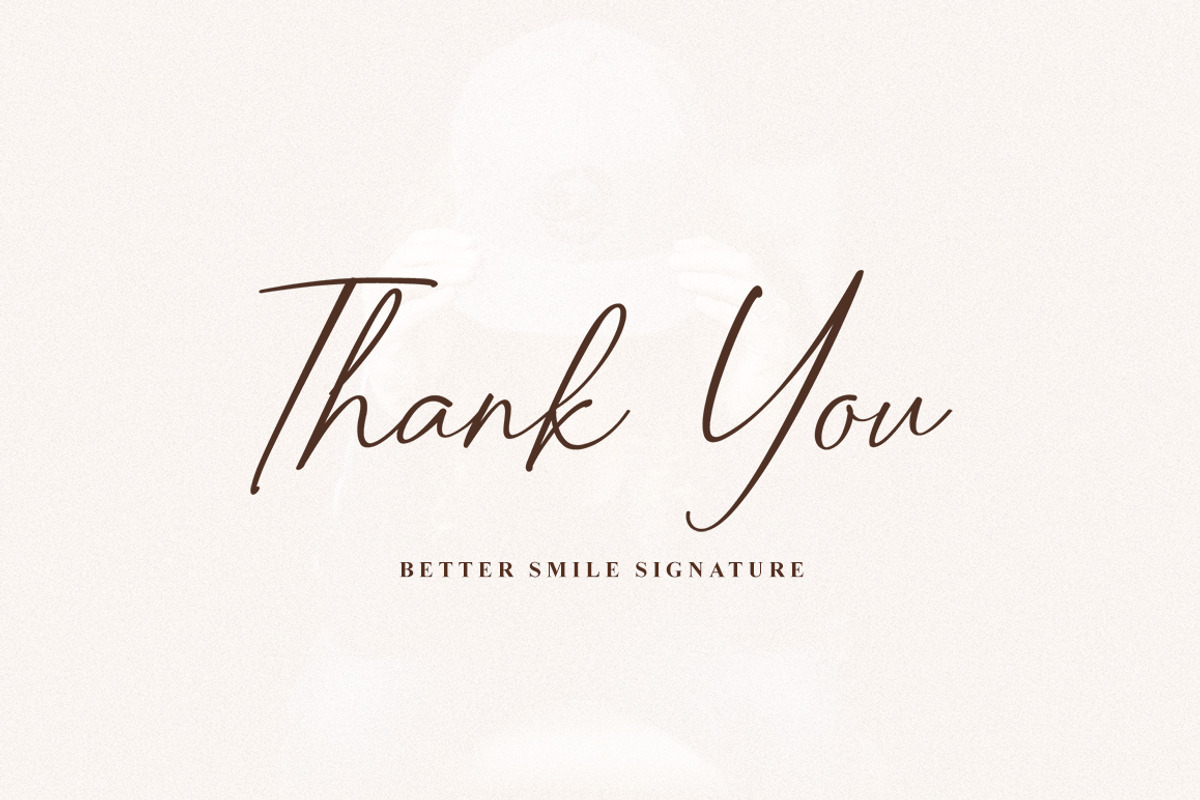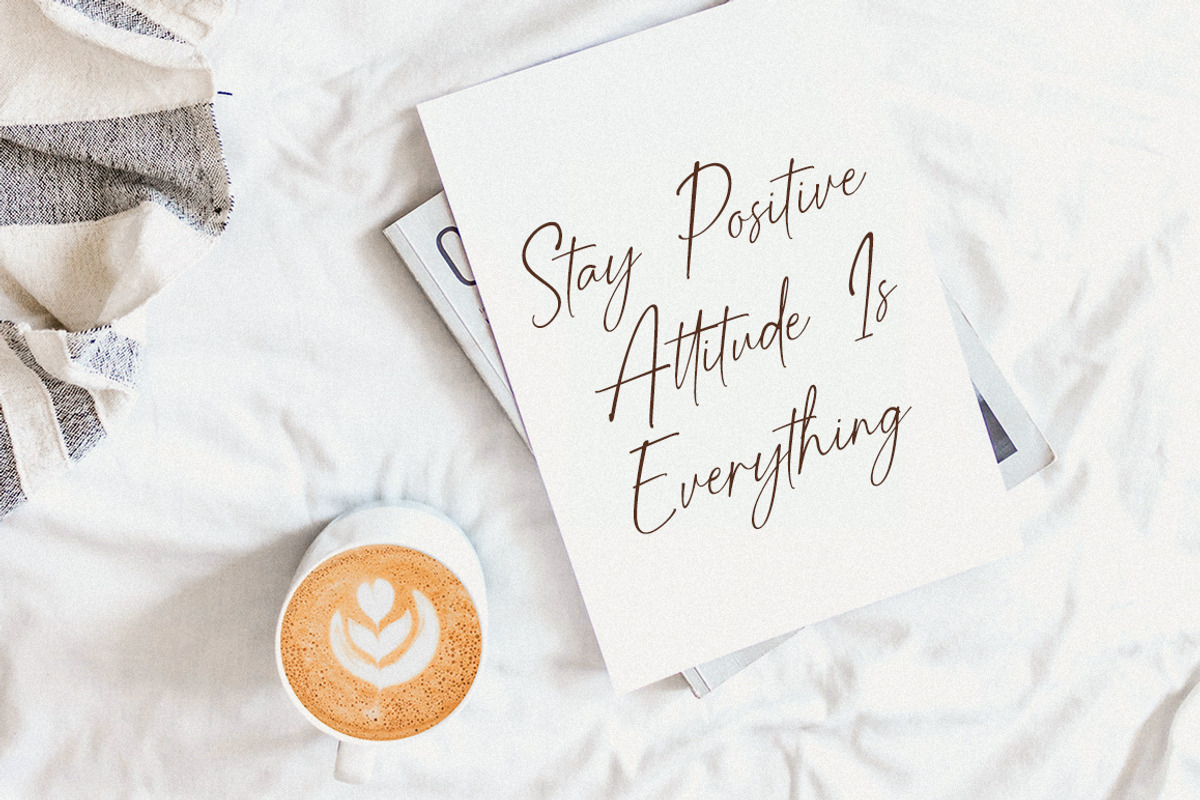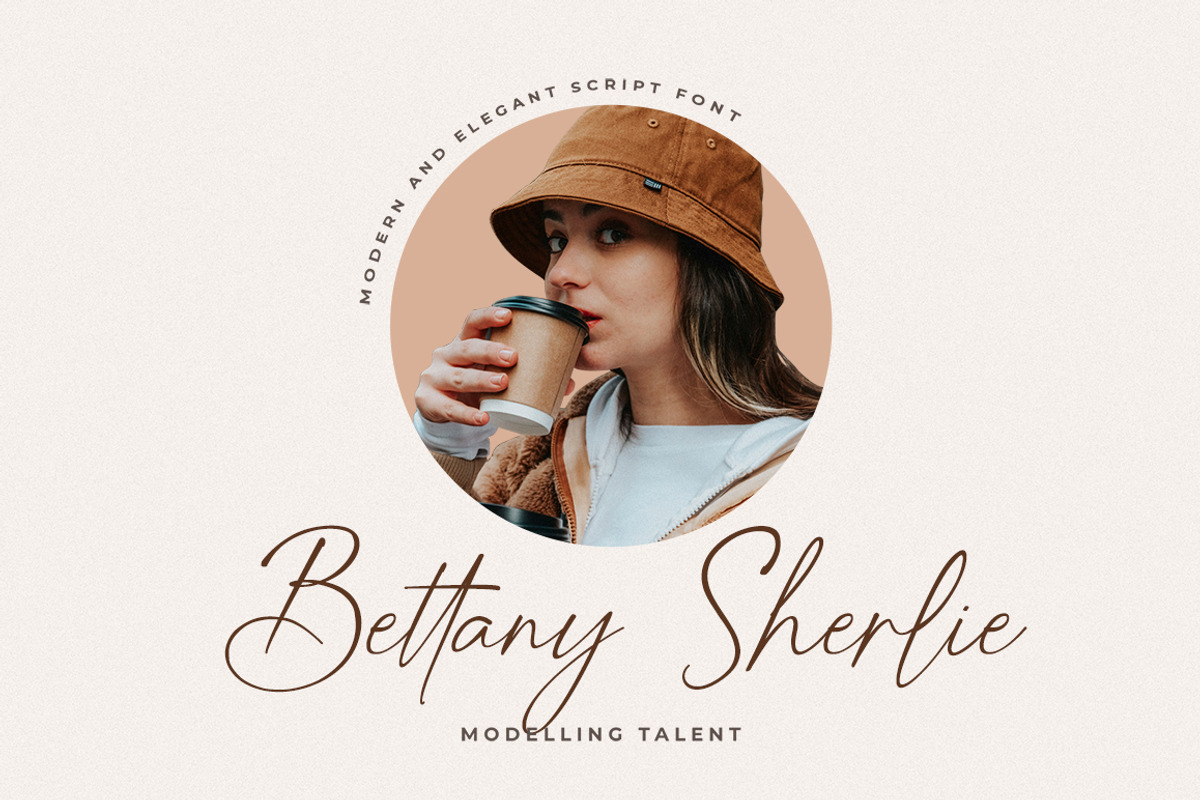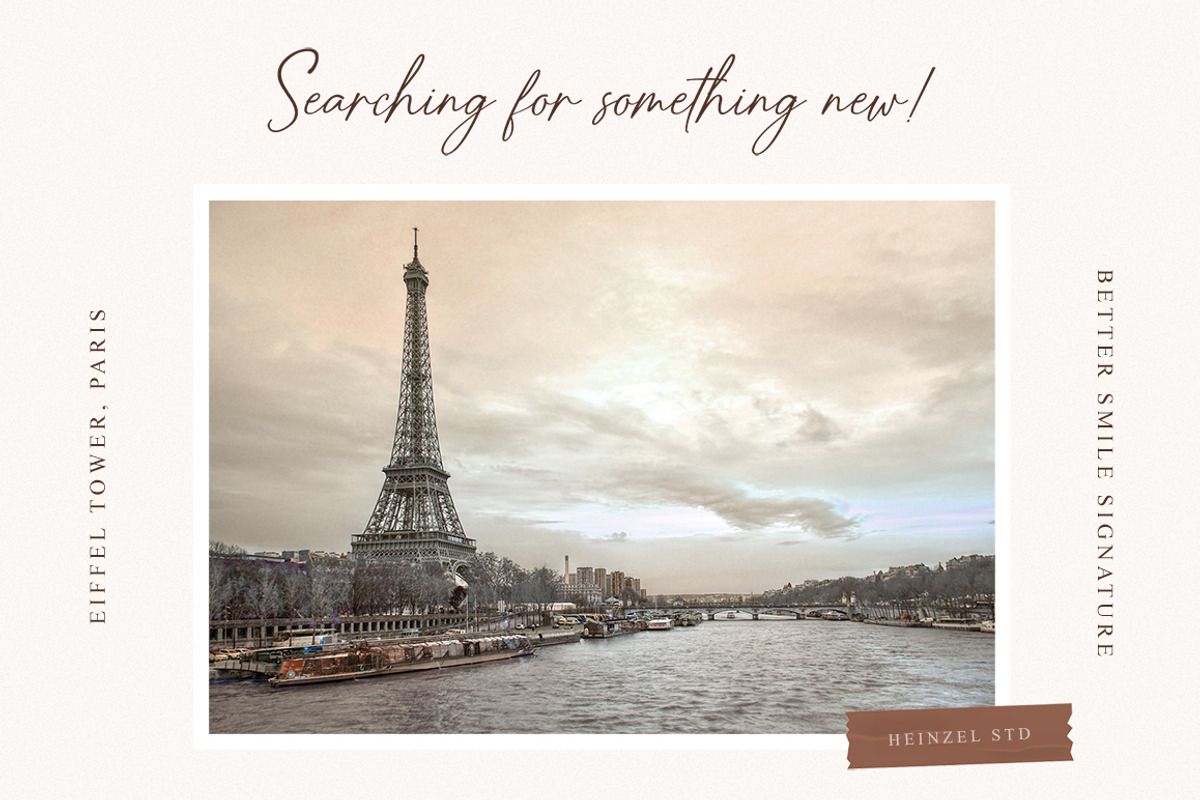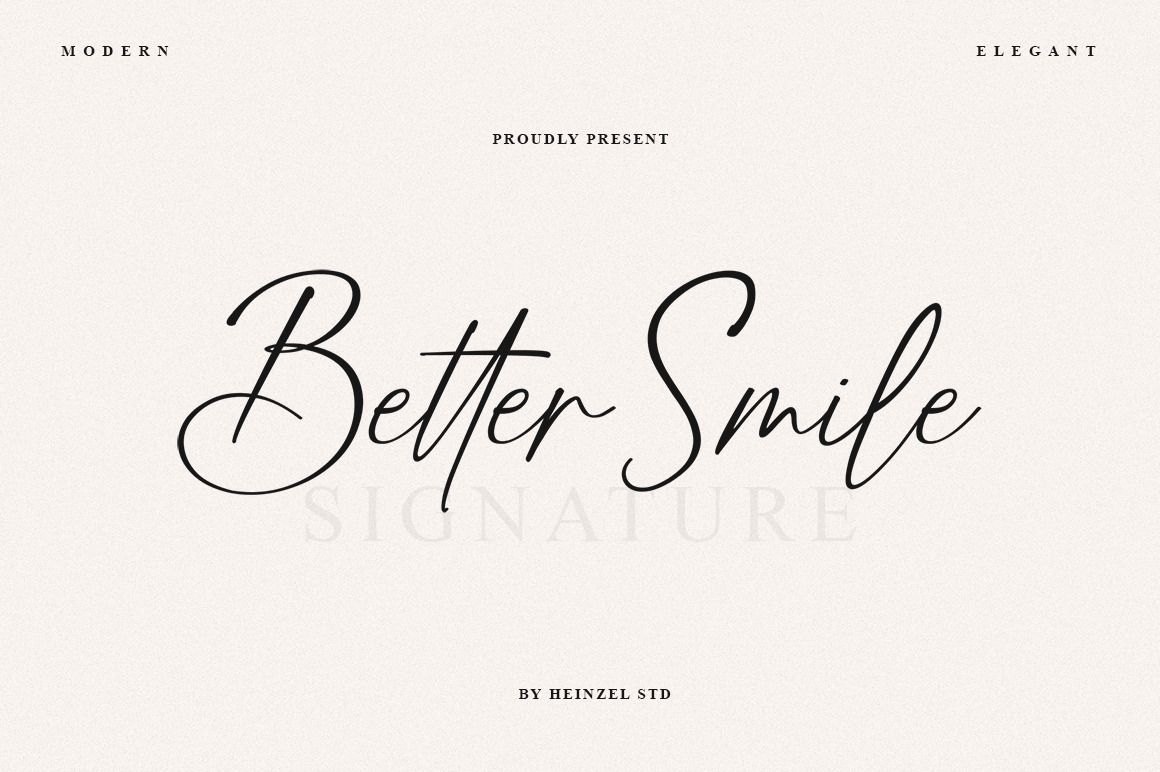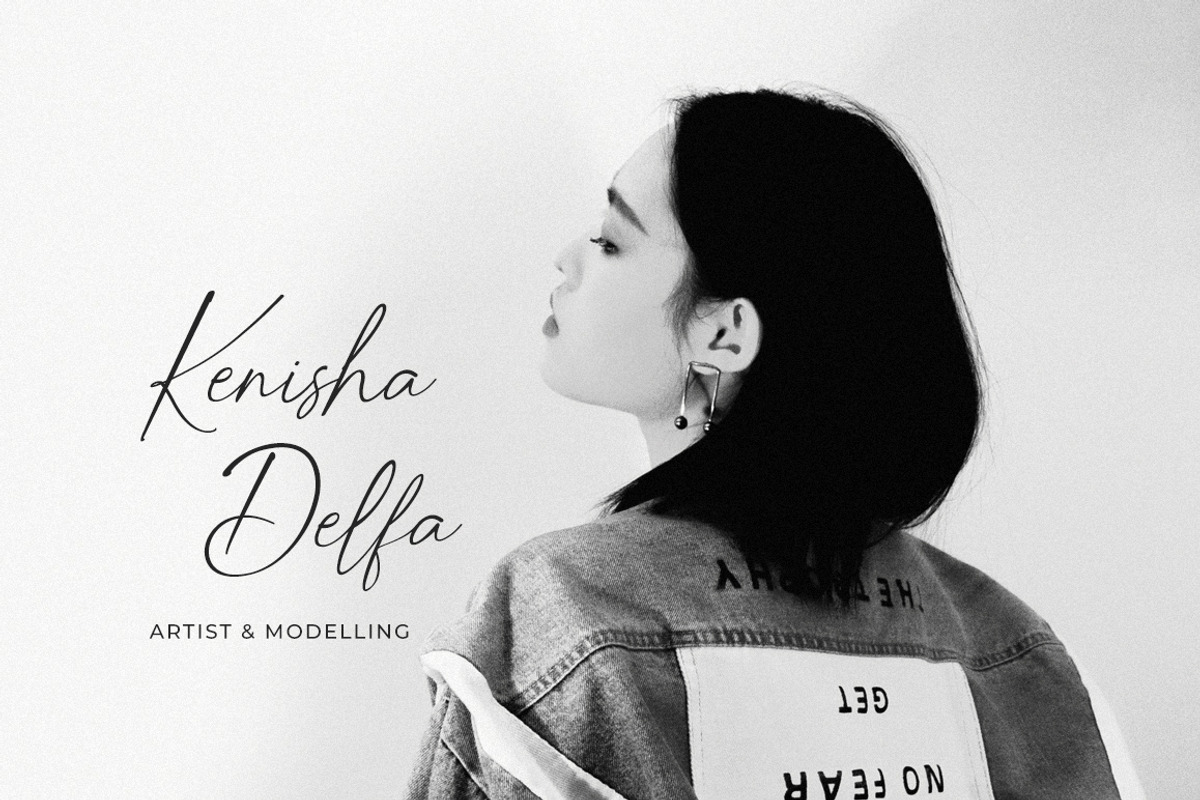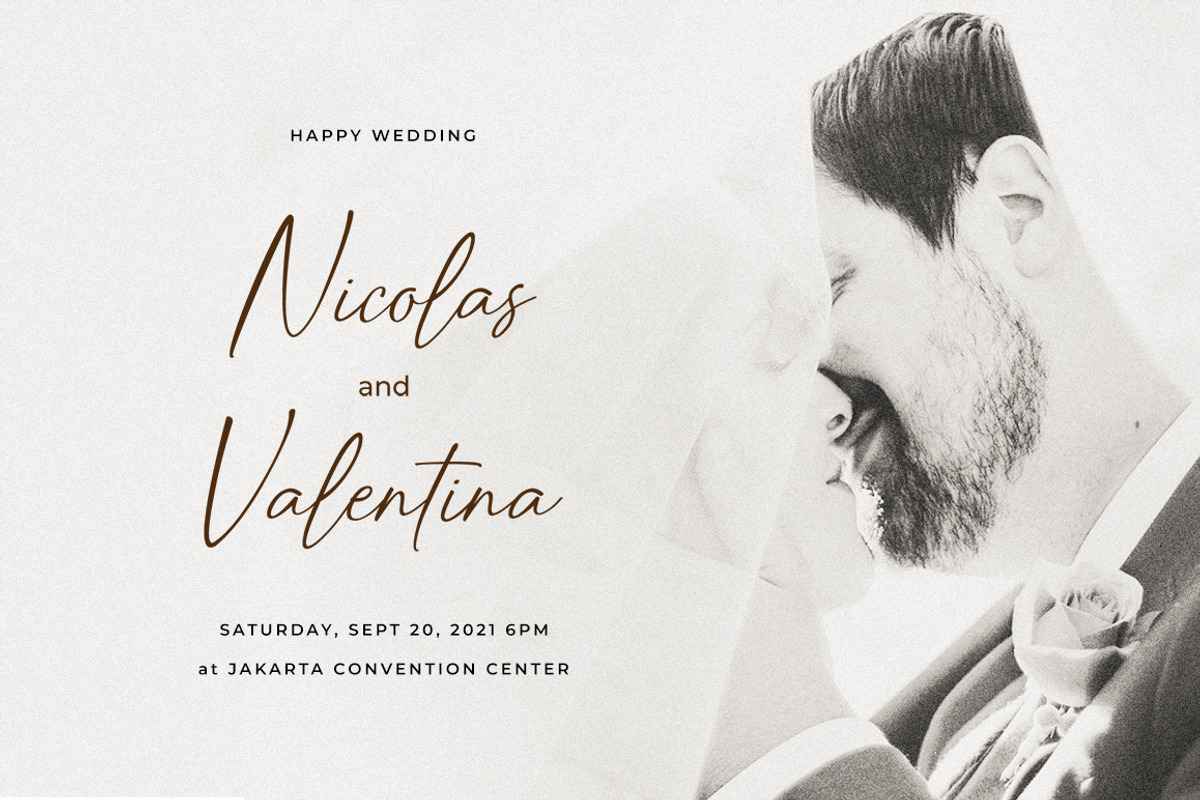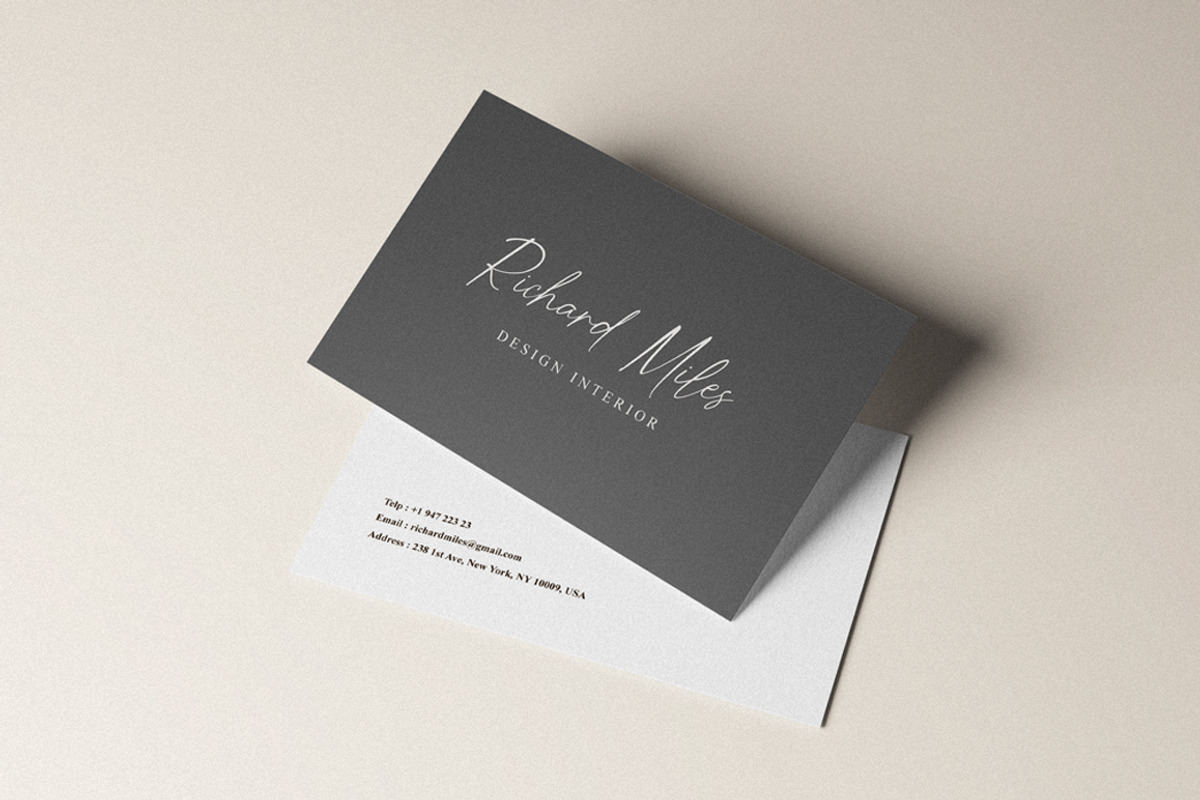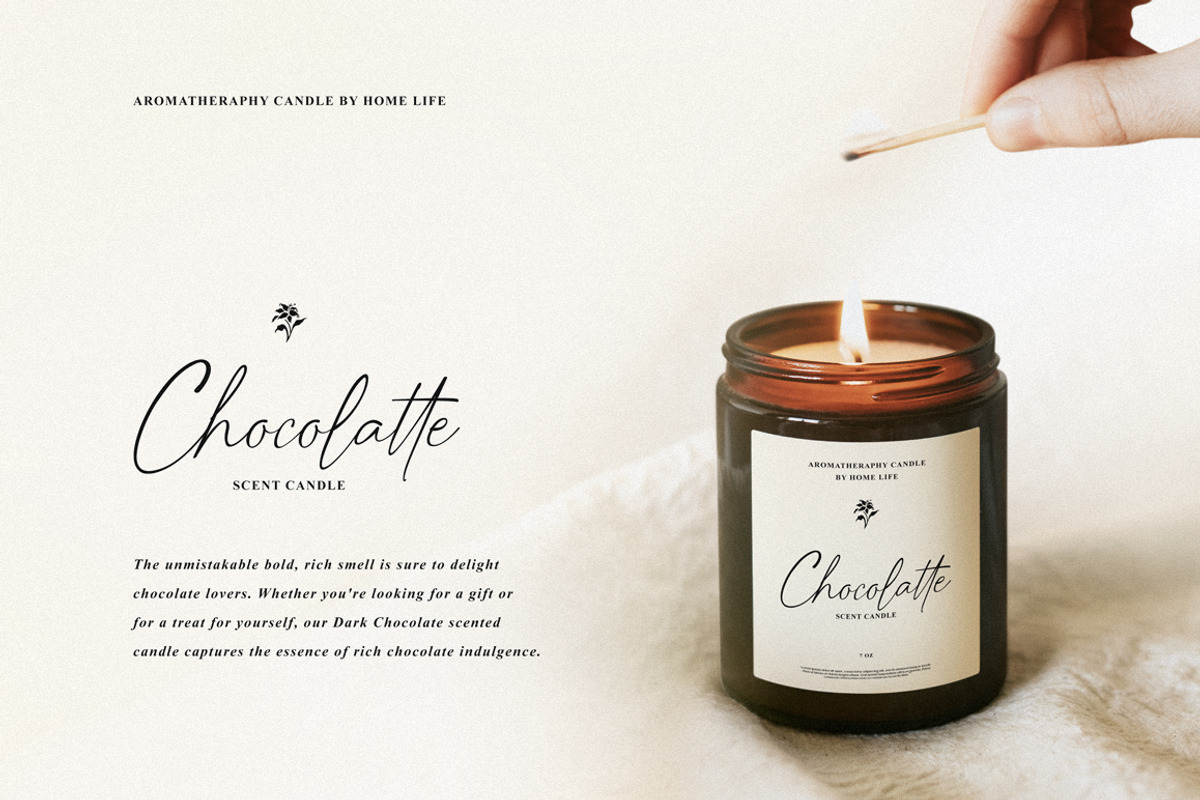
Better Smile Signature Font
Better Smile Signature is a flowing handwritten font, described by an elegant touch, perfect for your favorite projects. It looks stunning on wedding invitations, thank you cards, quotes, greeting cards, logos, business cards and every other design which needs a handwritten touch. Fall in love with its incredibly distinct and timeless style and use it to create spectacular designs!
Better Smile Features :
- Numerical and Punctuation
- Multilingual Support : ÁÂÃÄÅÆÇÈÉÊËÌÍÎÏÐÑÒÓÔÕÖØÙÚÛÜÝÞß àáâãäåæçèéêëìíîïðñòóôõöøùúûüýÿþ